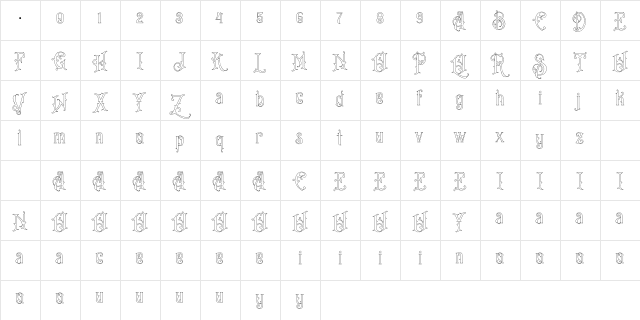
Bandits Outline
| Foundry | Hans Co. |
| Designer | Burhan Afif |
Design Context for Bandits Typeface
Bandits is built around its visual character rather than neutral utility — its distinctive forms are designed to make an impression at display sizes.
Font Pairing: Pair with a clean neutral sans-serif for body copy to let Bandits's character lead without overwhelming the composition.
Pro Tip: Use Bandits exclusively at display sizes — it was designed to be seen, not read at length. Let a neutral companion handle body copy.